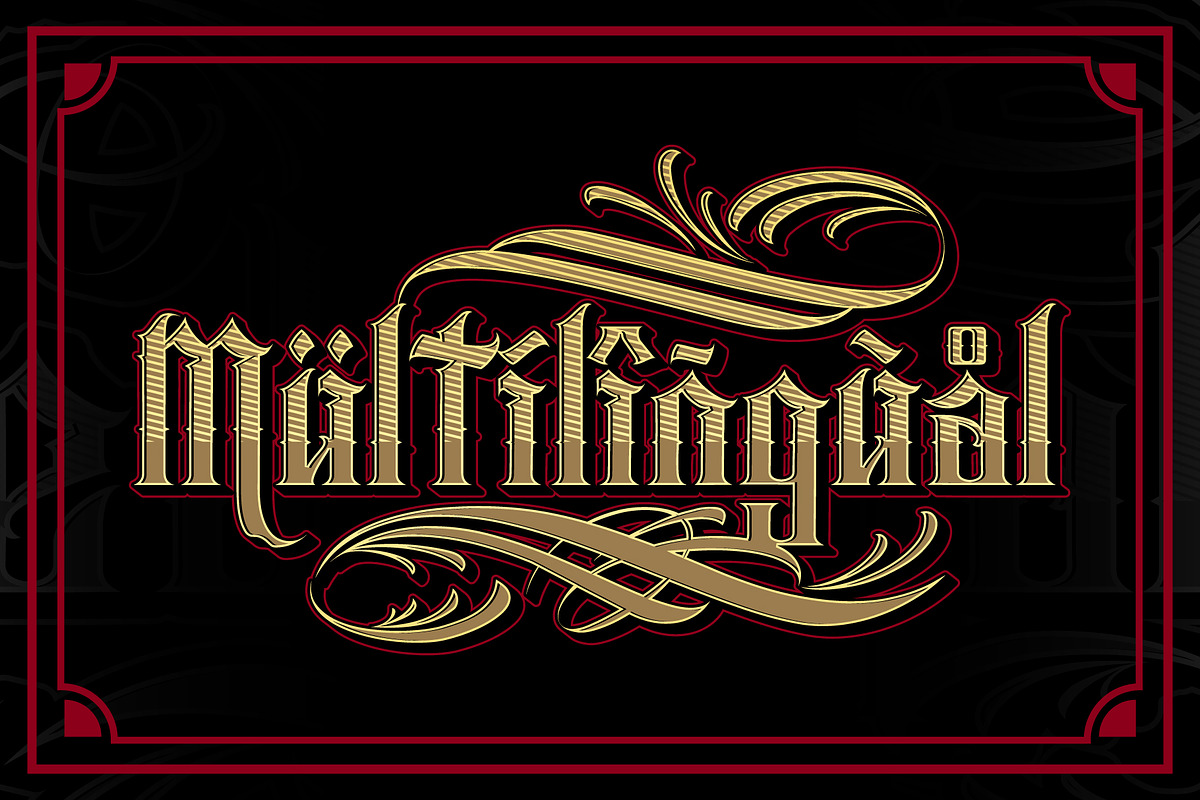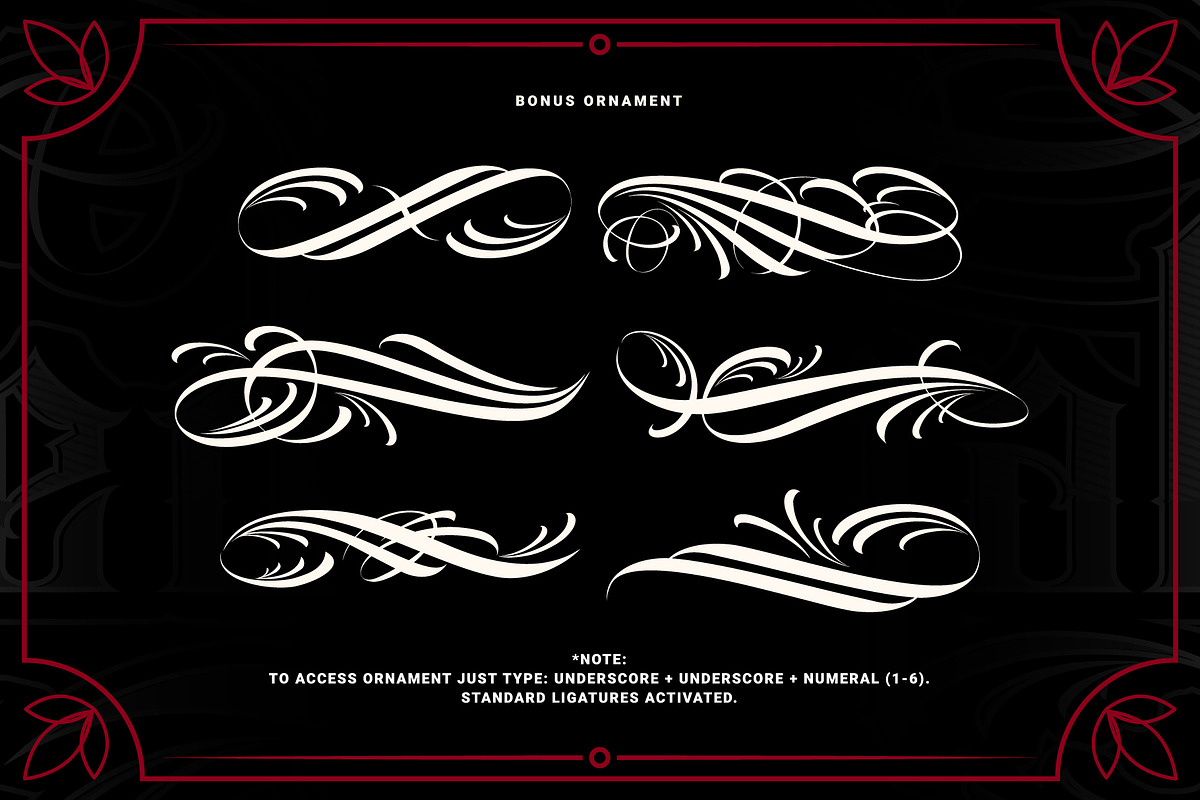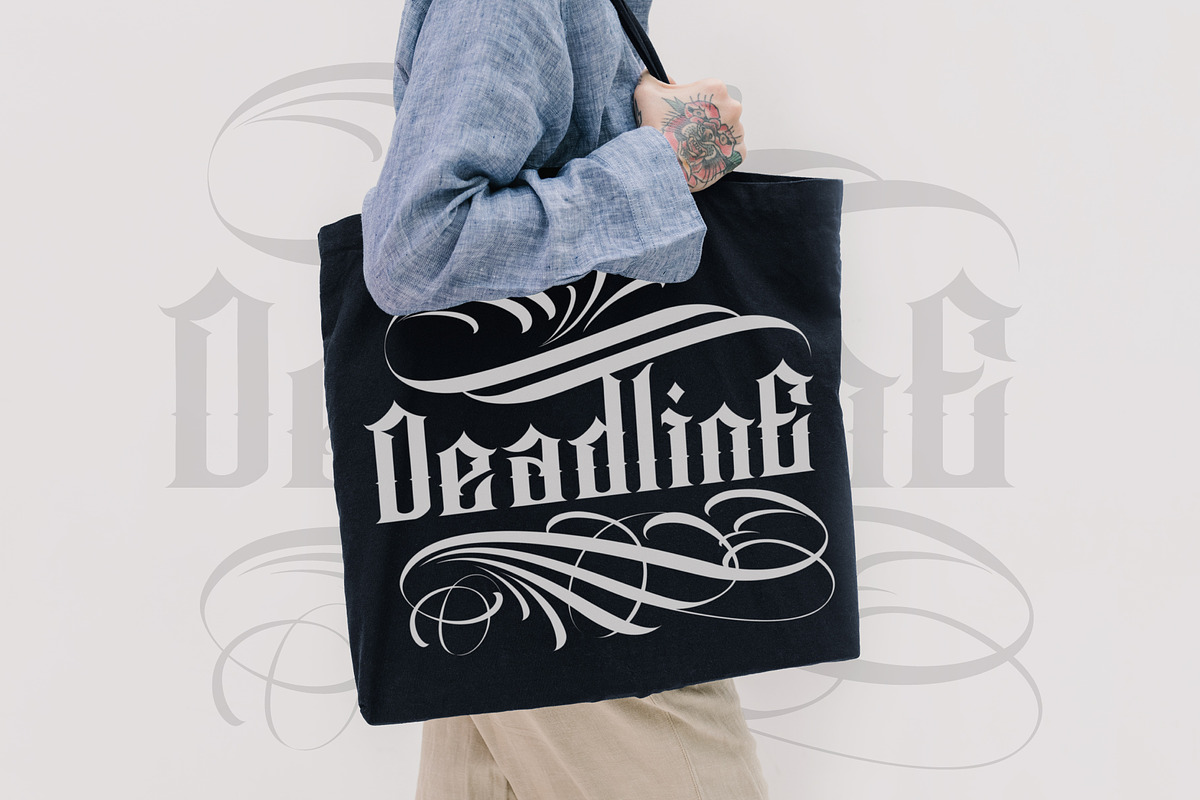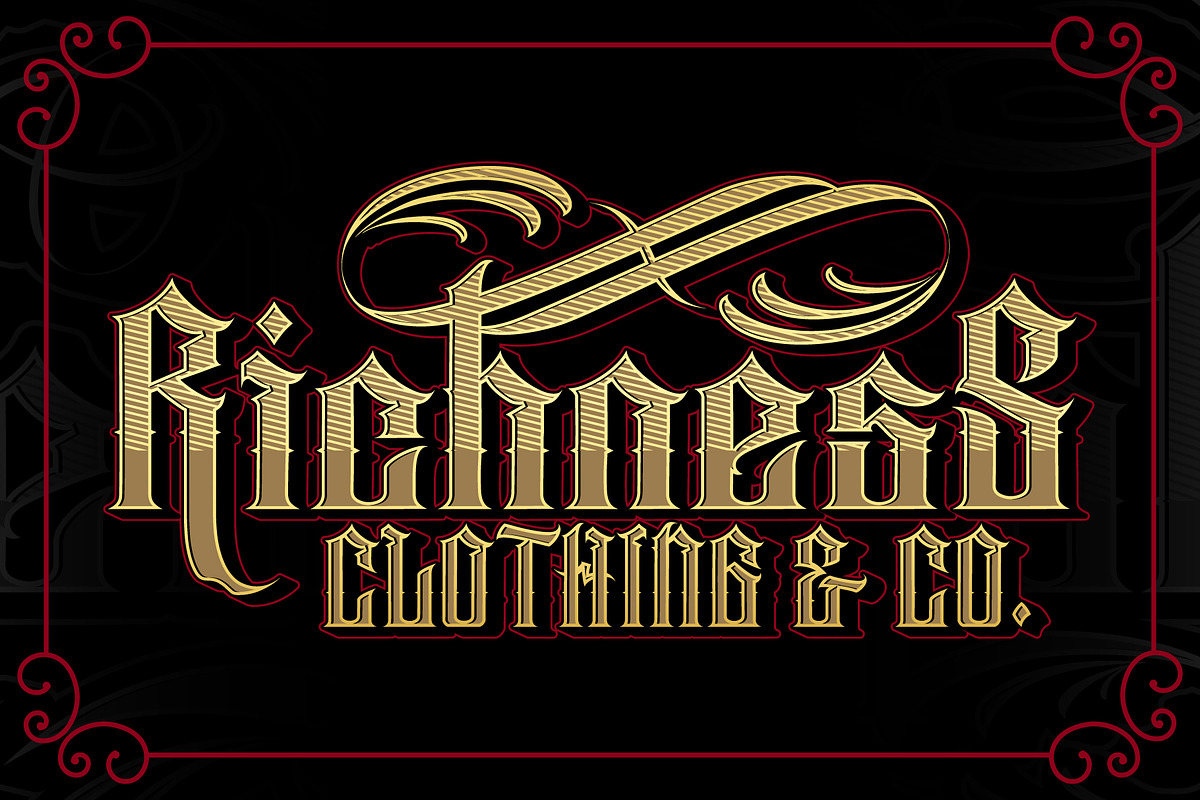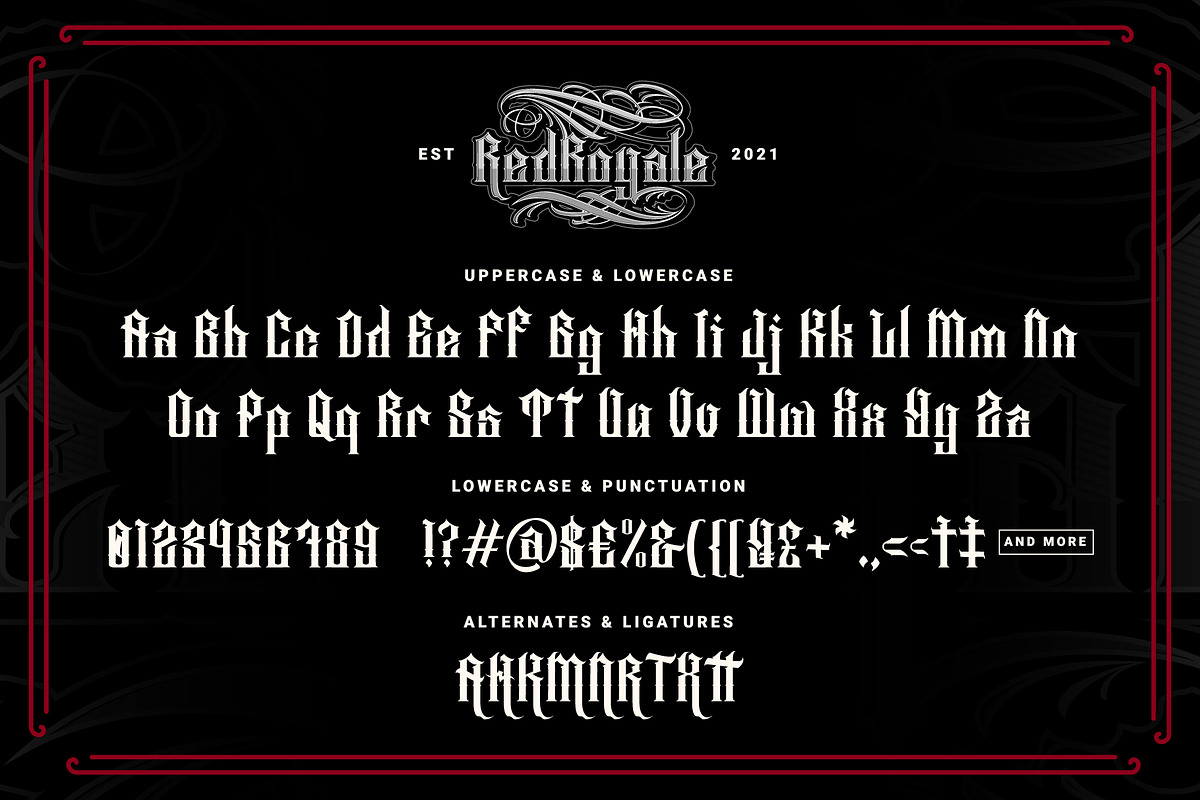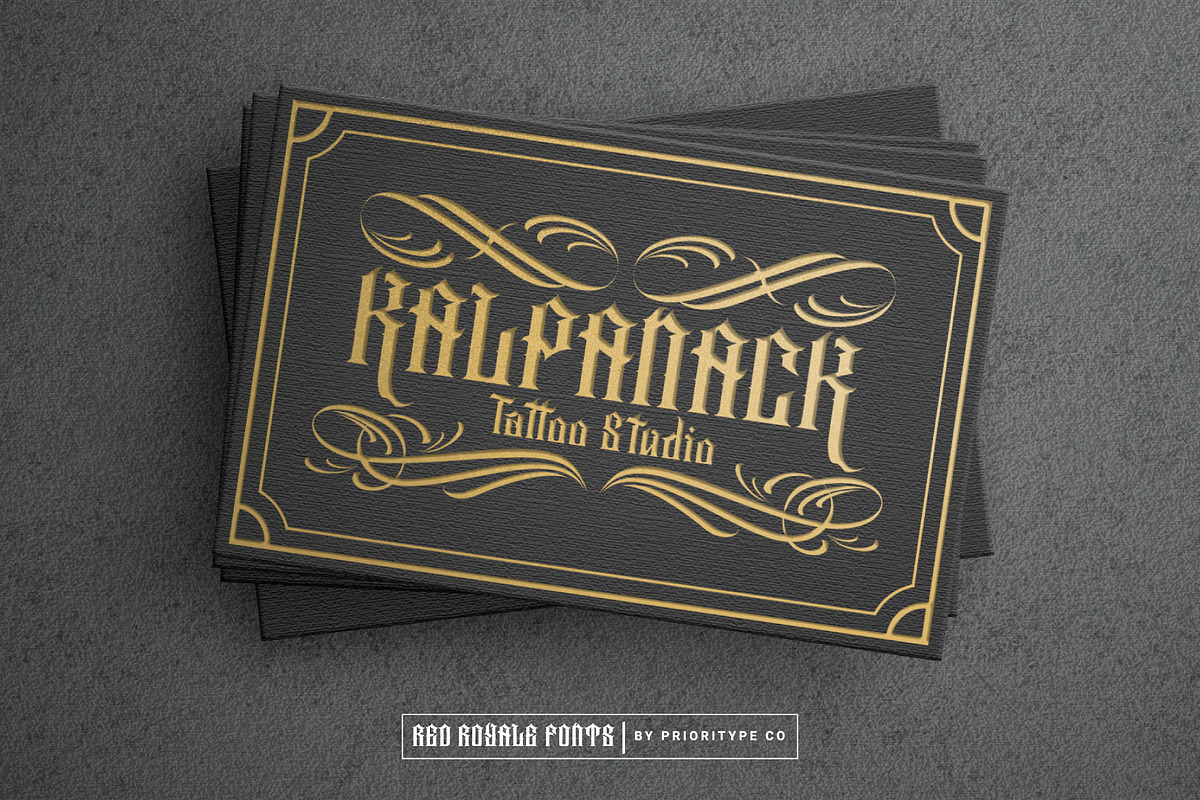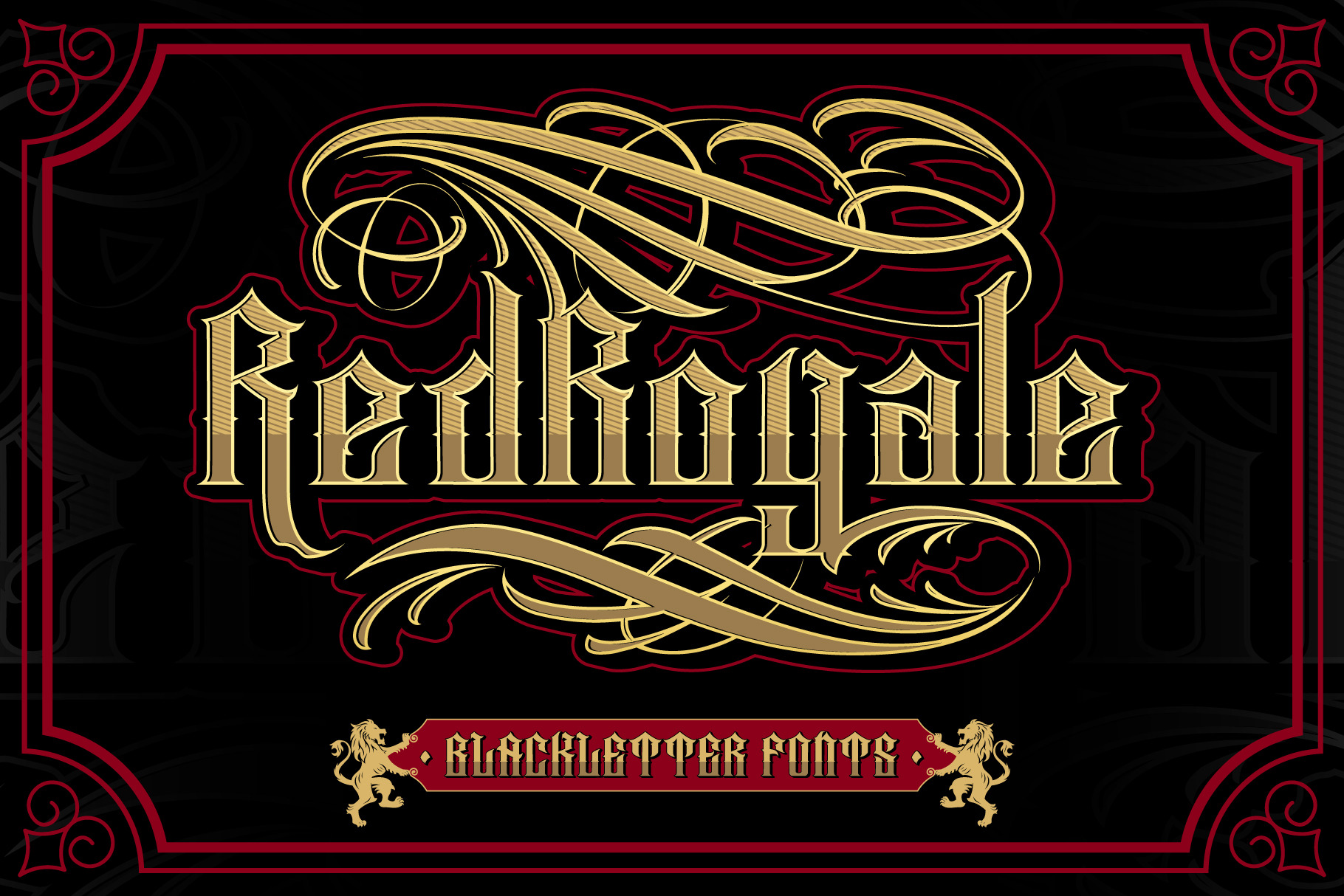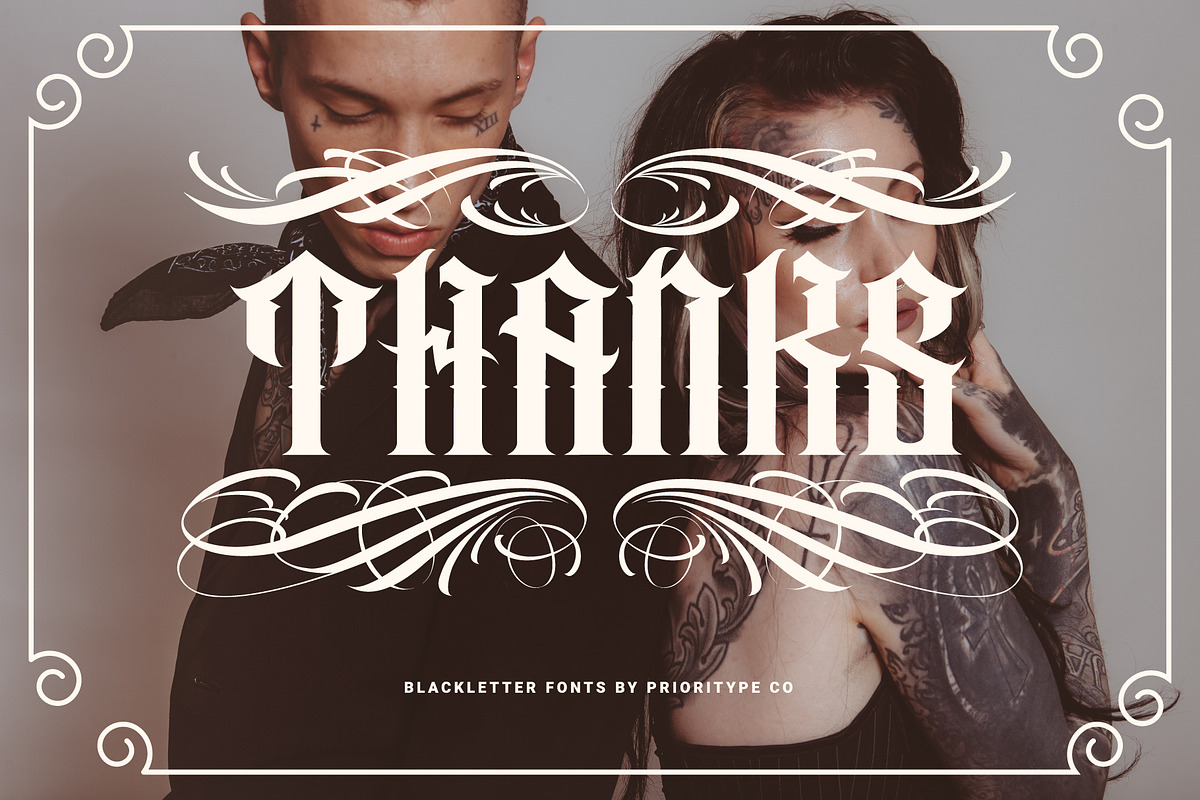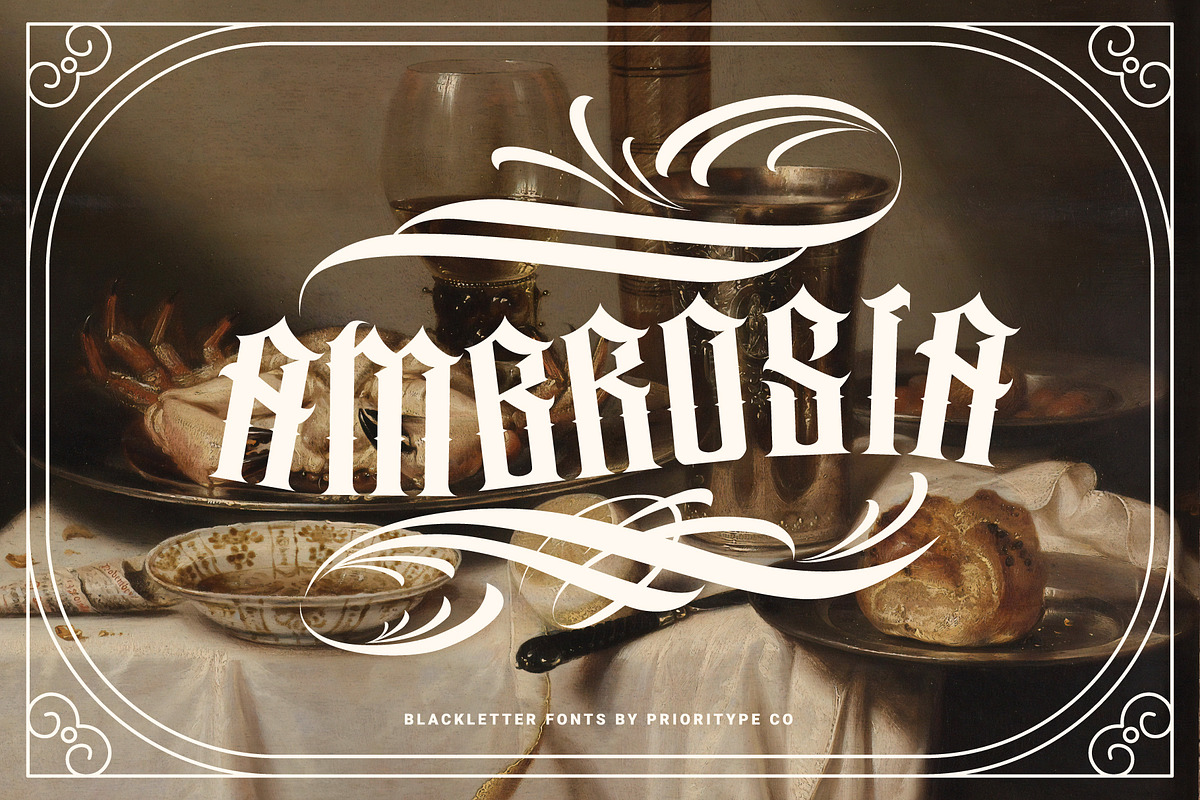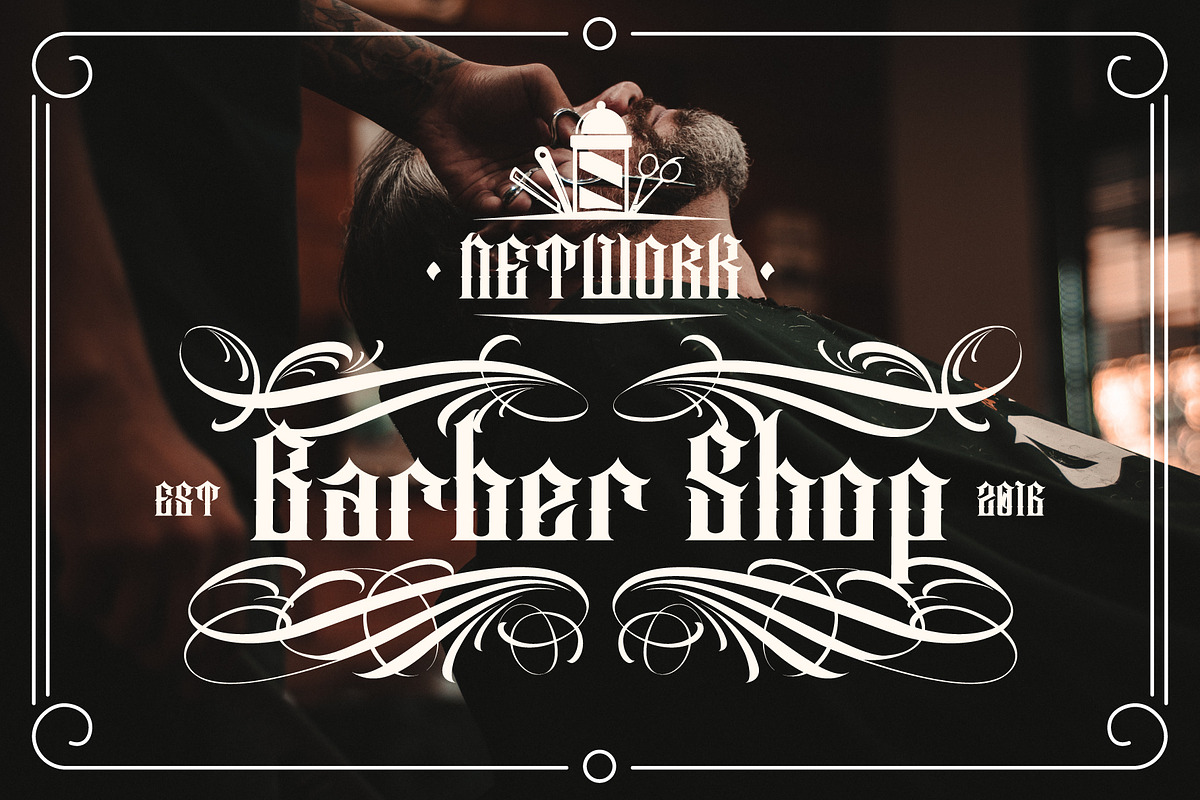
Red Royale – Blackletter Fonts
Hello again with blackletter font. With ferocity, now a new model is here for you to use as a powerful tool for your visual designs. It is suitable for designs such as posters, covers, merchandise, logotypes and more.
- Features: Uppercase, Lowercase, Numeral, Punctuation, Multilingual, Alternates, Ligatures, Ornament & PUA Encoded.